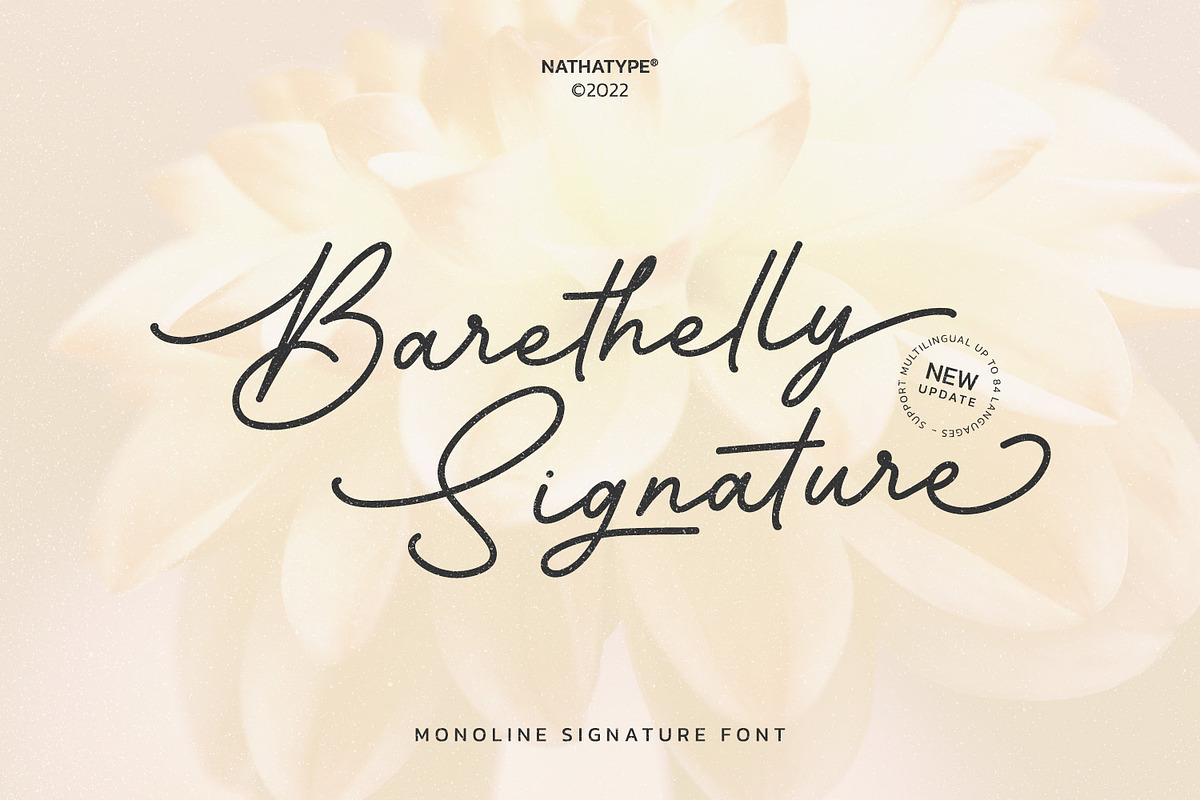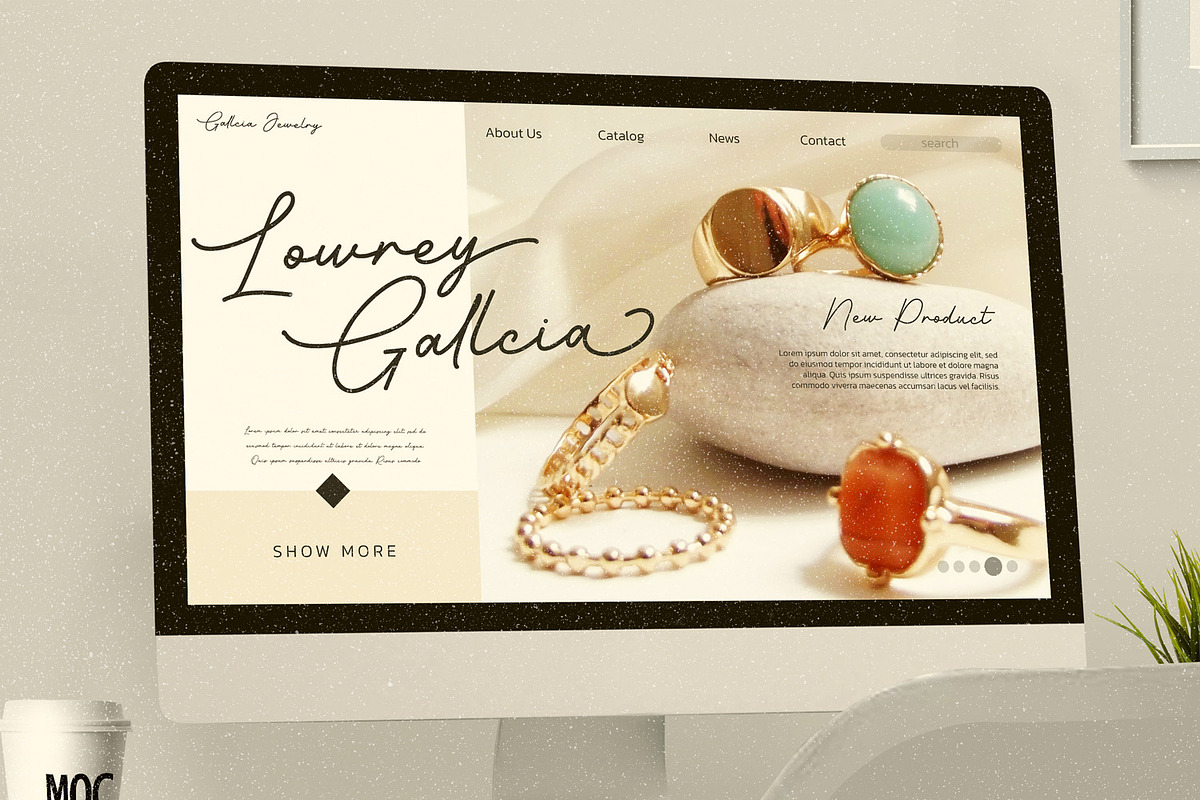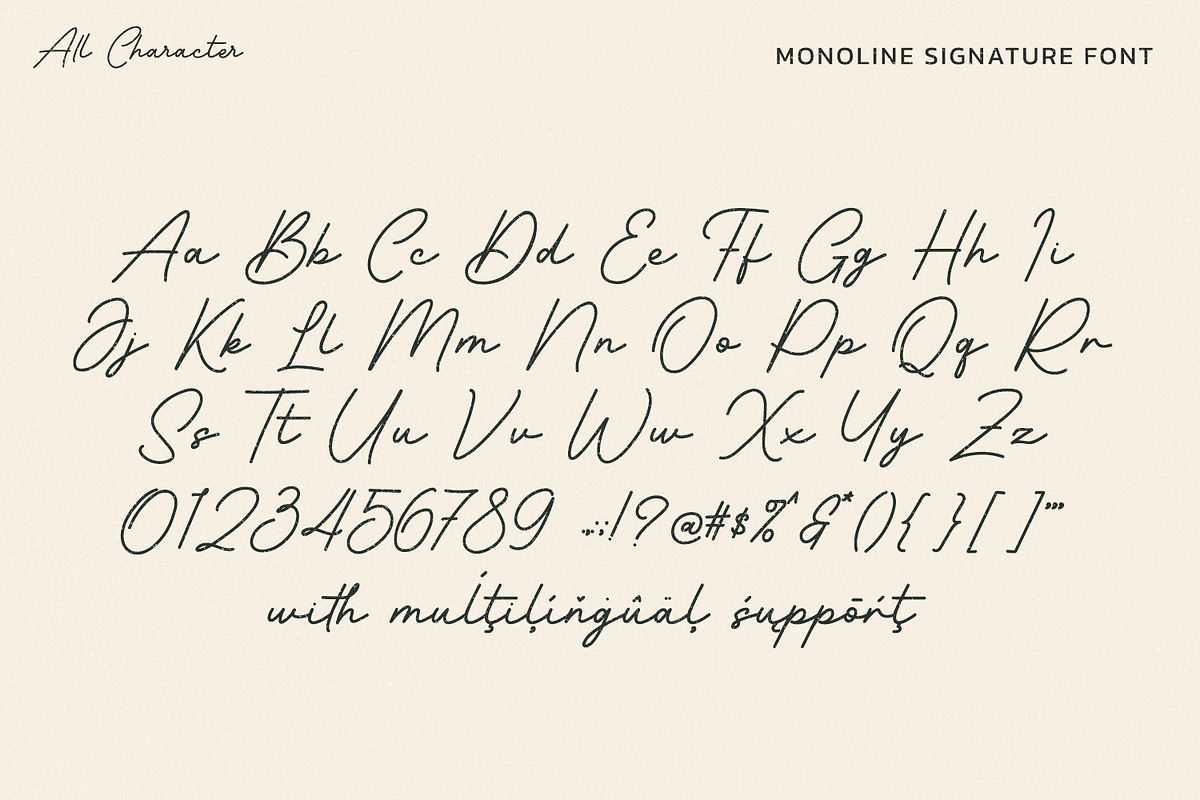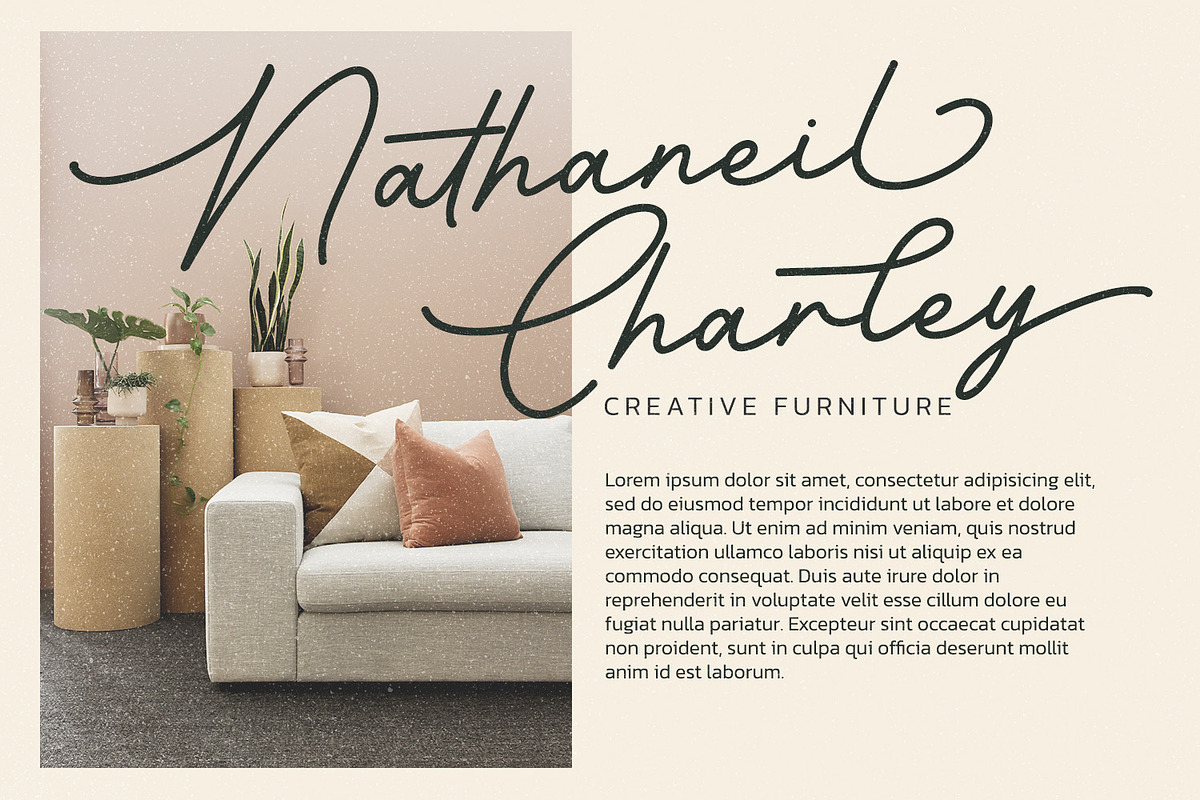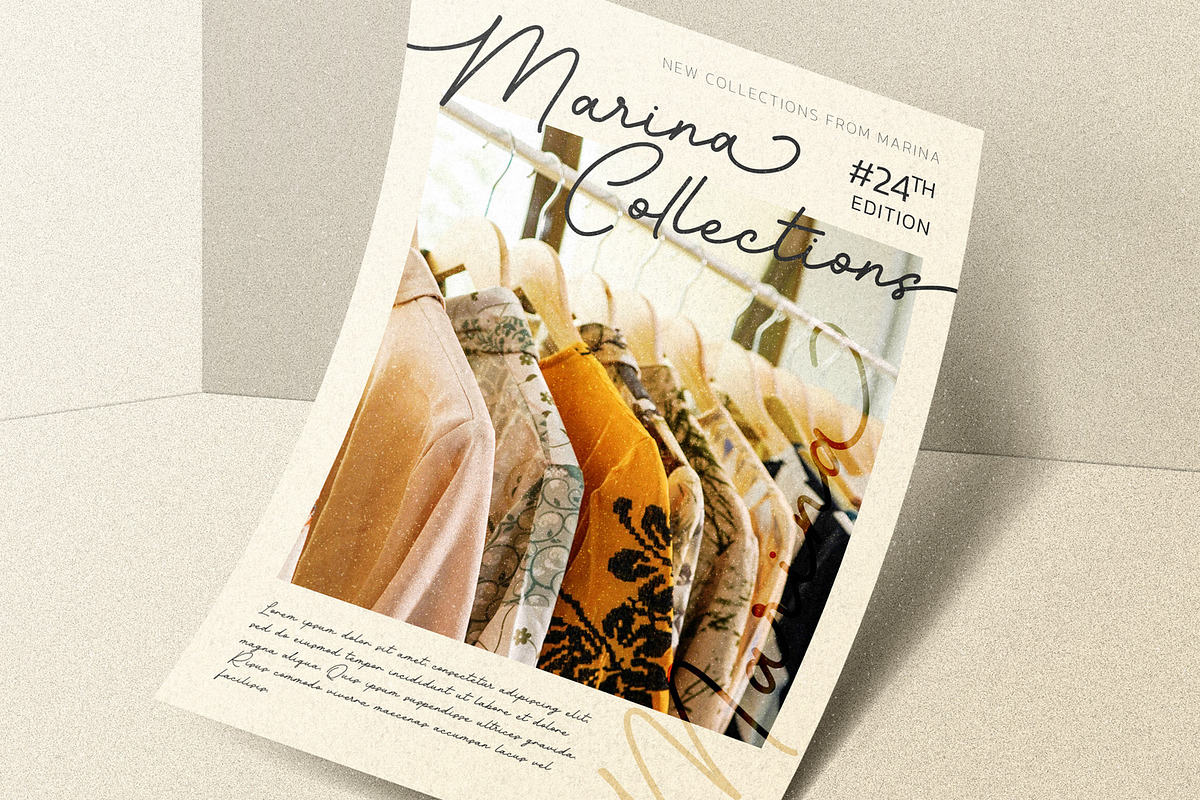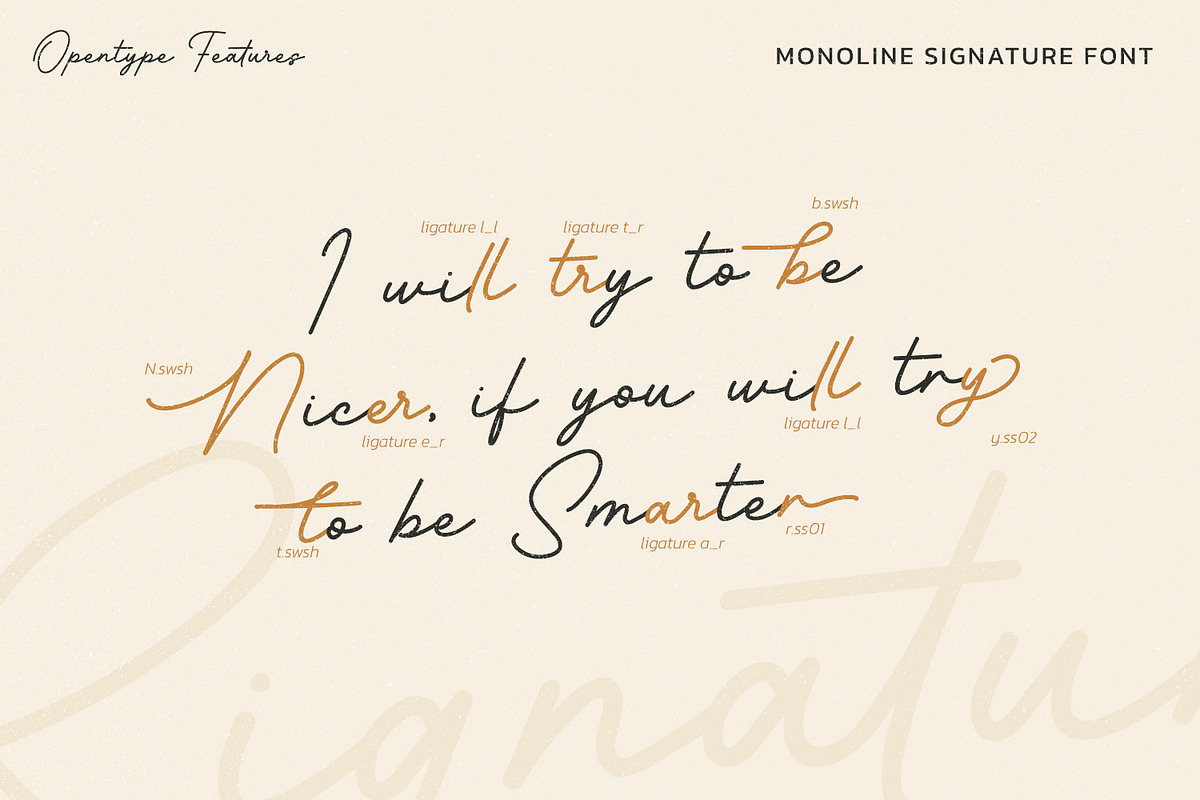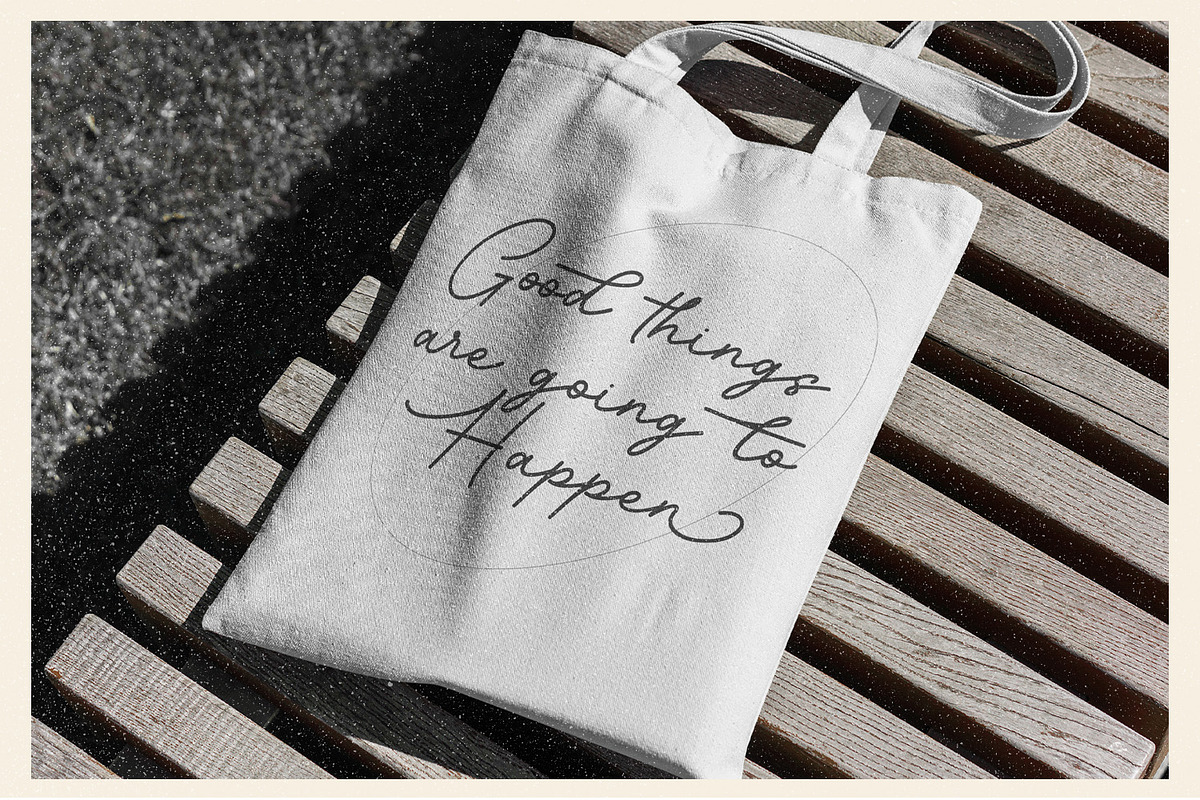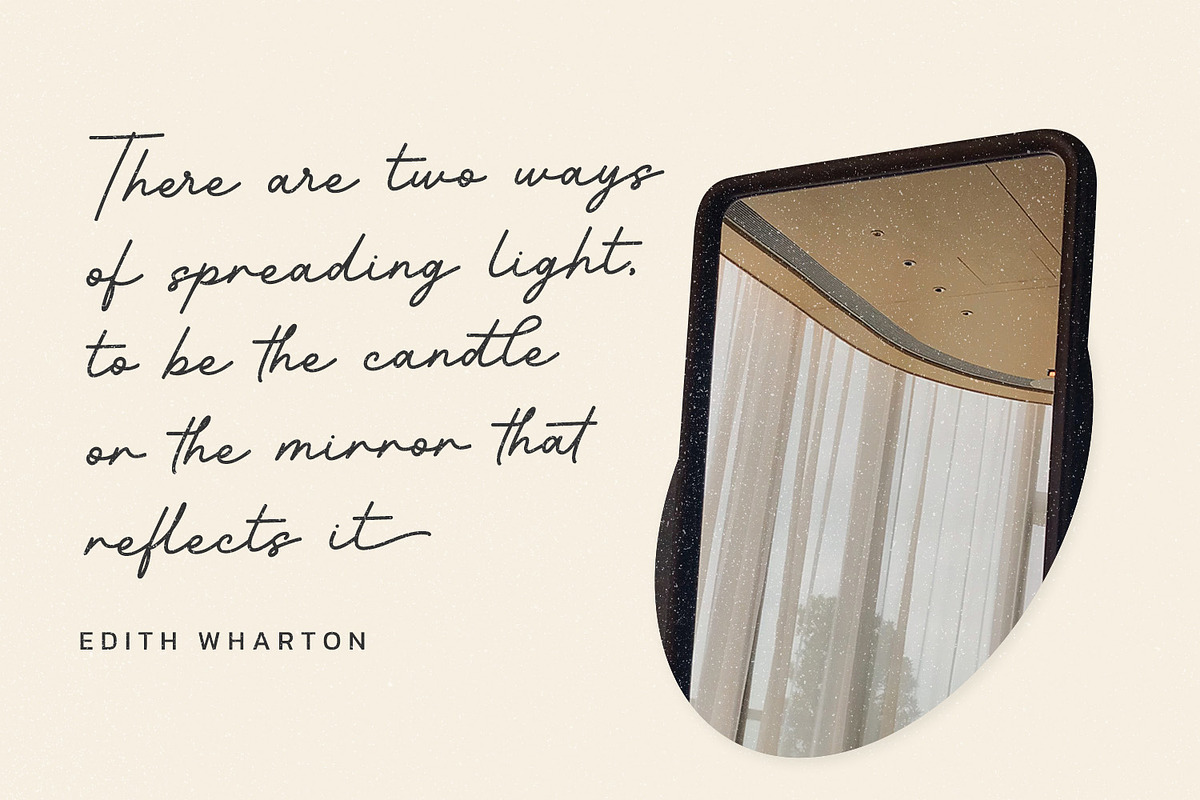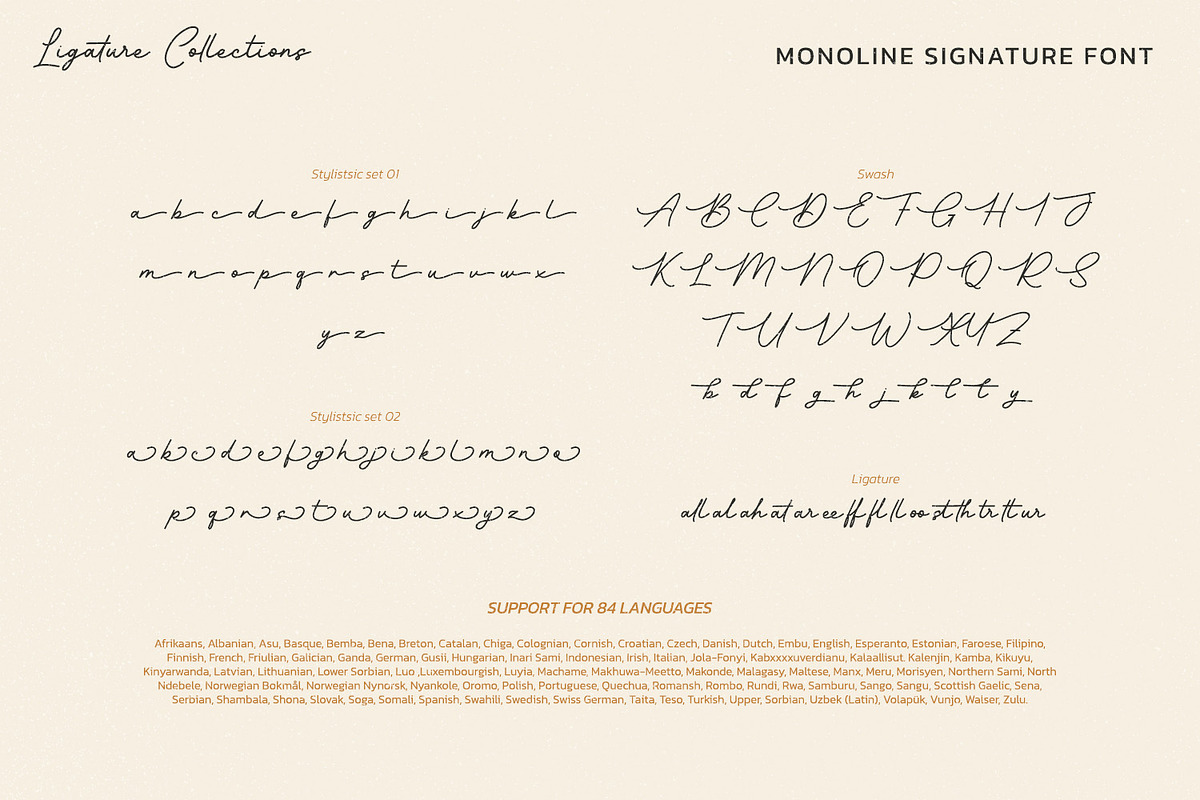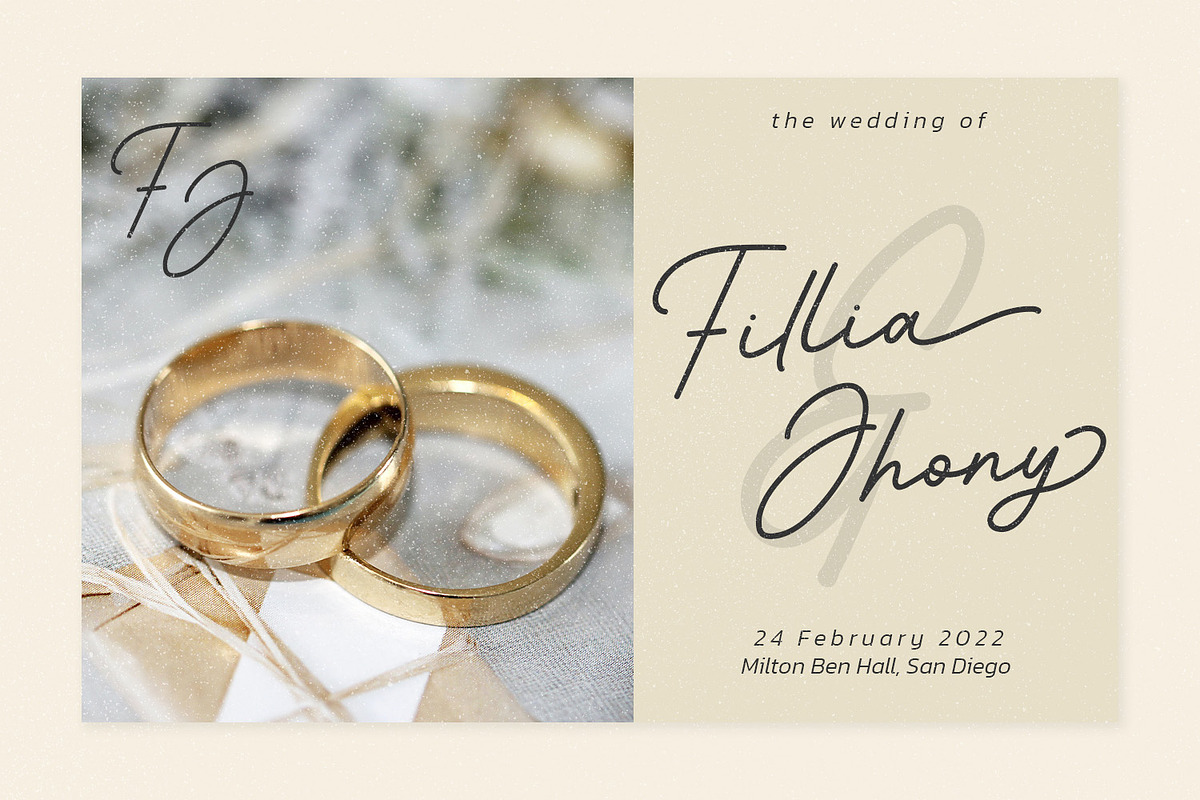
Barethelly Signature
Barethelly signature is a font designed with actual handwriting. This font generates clean, elegant and trustworthy appearance. As our commitment to support your brand globally recognized, we always come with multilingual options.
- Stylistic Sets
It is can used for branding, logos, social media quotes, invitations, stickers, posters, vintage designs, wall art, merchandise, social media, and many more. Get more inspiration by seeing the preview.